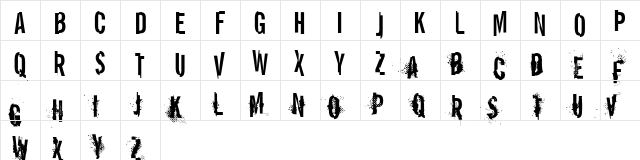
vtks REPORT erRoR Regular
| Foundry | DOUGLAS VITKAUSKAS |
| Designer | DOUGLAS VITKAUSKAS |
Design Context for vtks REPORT erRoR Typeface
vtks REPORT erRoR is a composed and adaptable typeface that performs quietly and consistently across a wide range of design contexts.